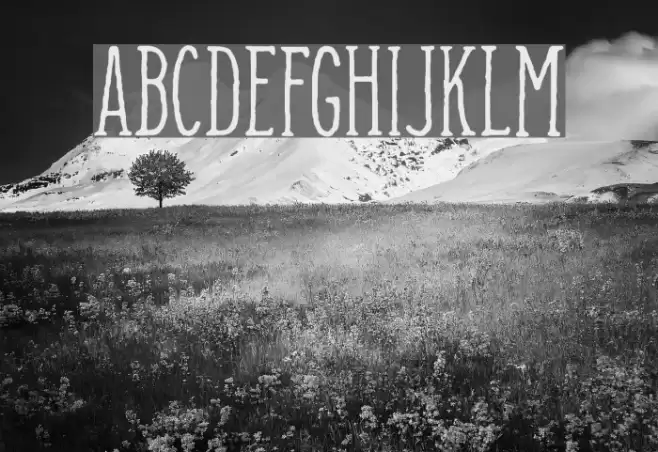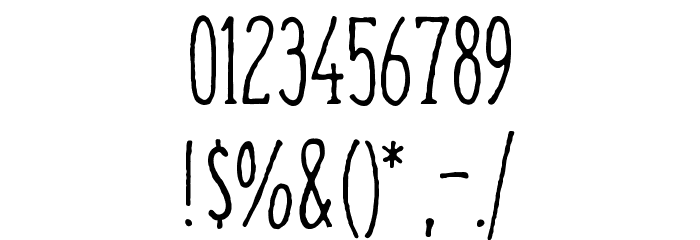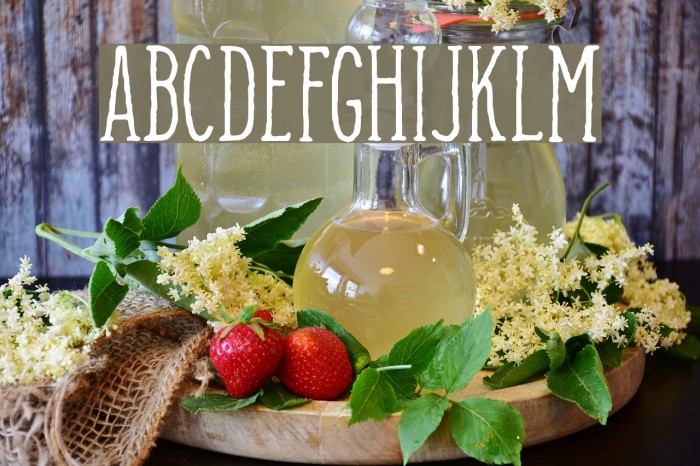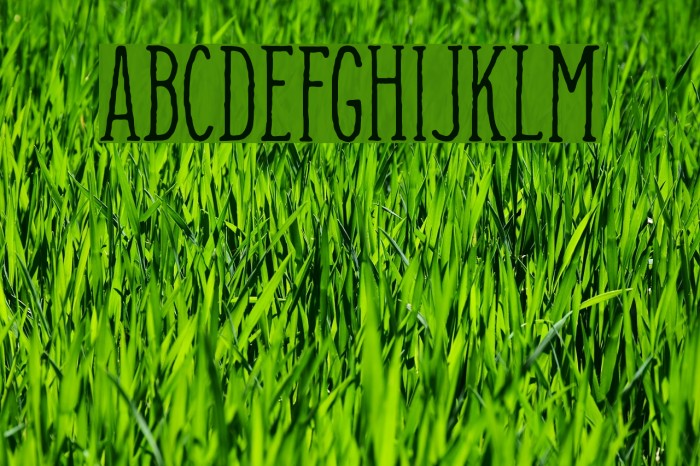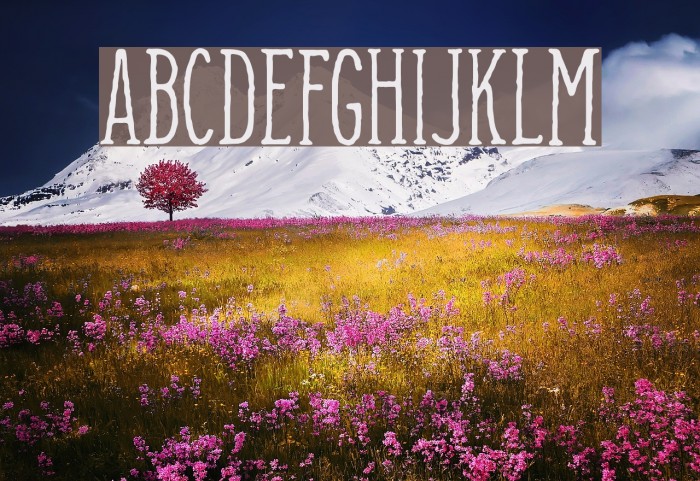
Camargue Serif Regular Font
Camargue Serif Regular Description
This font features a classic serif style with a touch of elegance and sophistication. The characters are tall and slender, with distinct serifs that add a traditional feel. The uppercase letters are slightly condensed, giving a formal and refined appearance. The lowercase letters maintain a consistent style, complementing the uppercase with a balanced and harmonious look. The numerals are clear and legible, with a slight variation in stroke thickness that adds character without compromising readability. Special characters are well-integrated, maintaining the overall aesthetic of the font. This font is suitable for projects that require a timeless and classic touch, offering both style and readability.
A classic serif font with elegant, slender characters and distinct serifs from Distorted Eroded fonts.
- Proposed Projects: Ideal for book covers, formal invitations, branding, and editorial design.
- Overall Style: Classic